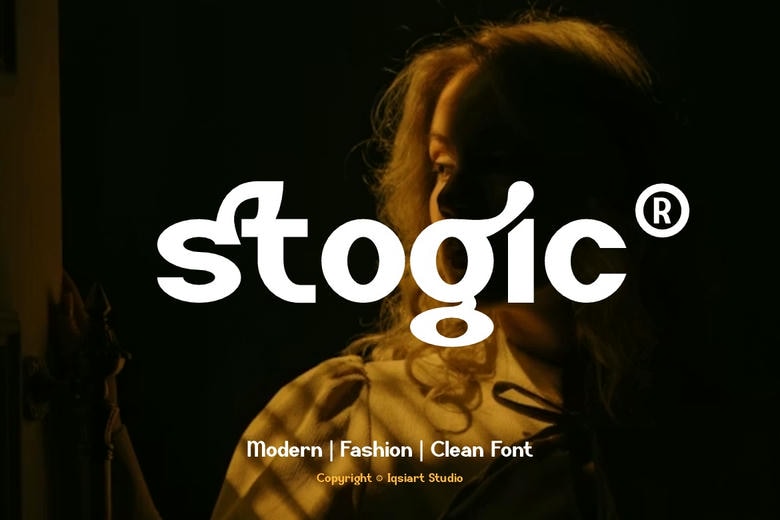
Stogic Font is a bold and authentic display typeface that works well for many design projects. We have a wide range of themes and font styles. Check out our profile to explore more and find the right style for your project.
Stogic Sans Serif Font